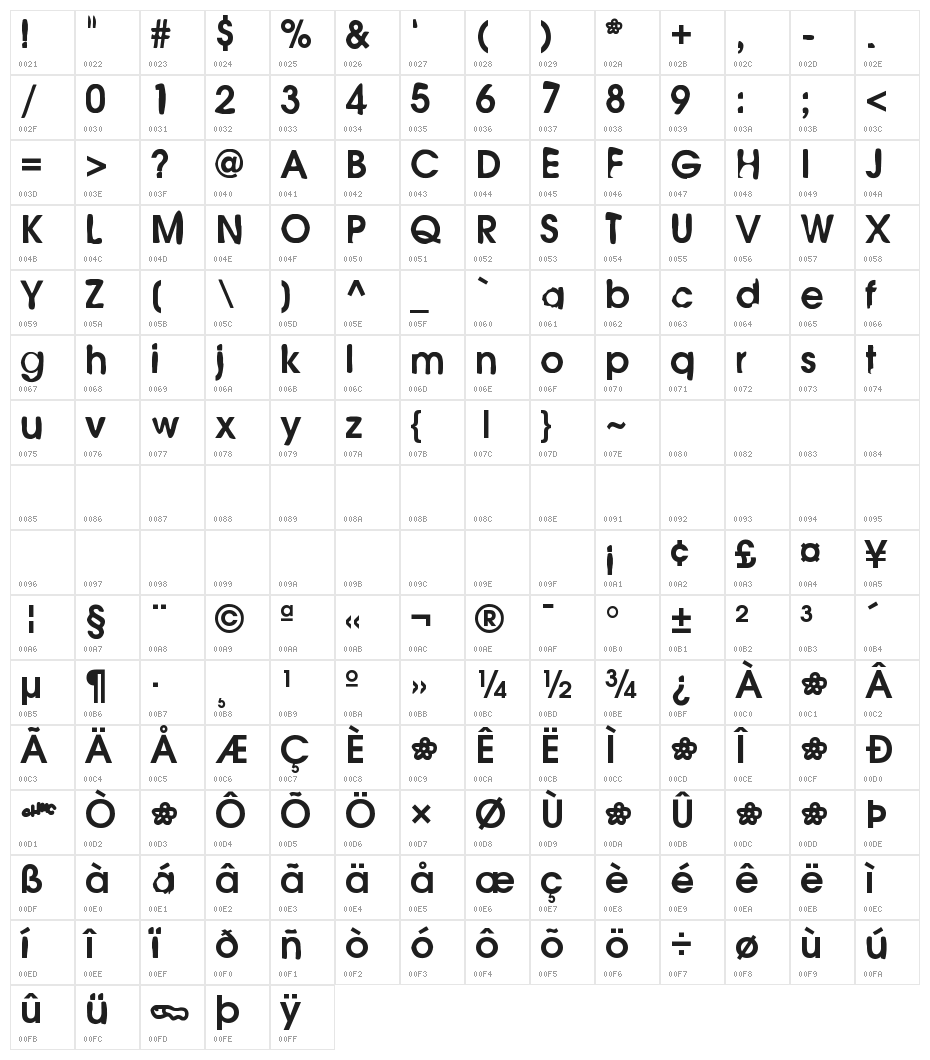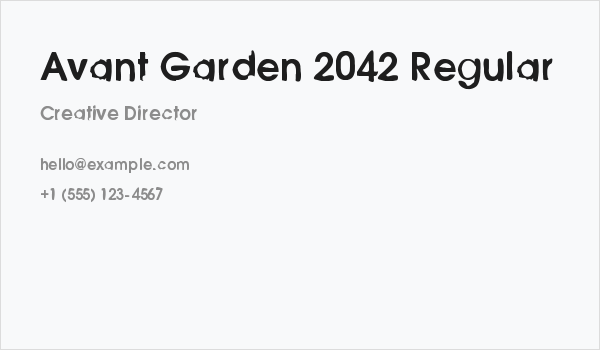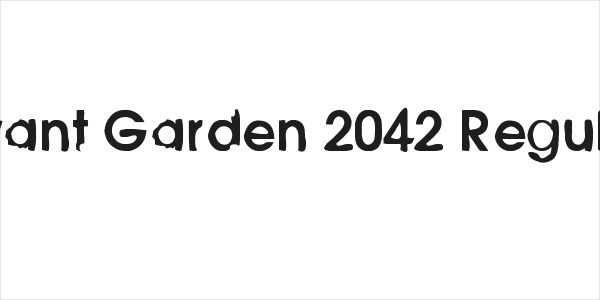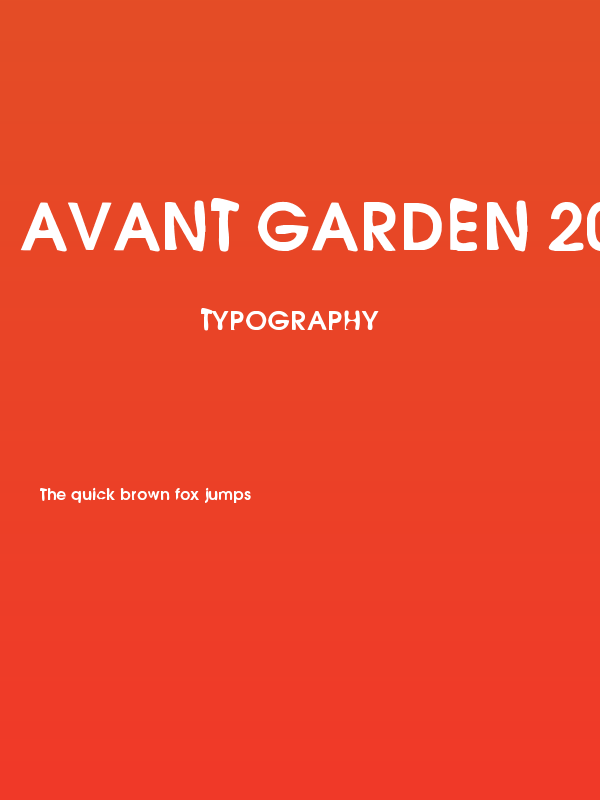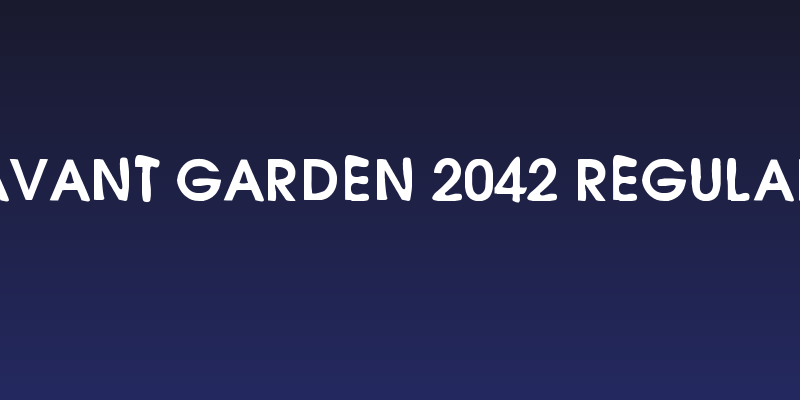
Avant Garden 2042 Regular Font
Avant Garden 2042 Regular Description
This font features a playful and organic design, with each character exhibiting a unique, hand-drawn appearance. The letters have a slightly uneven baseline, adding to the whimsical and artistic feel. The strokes are bold and rounded, with varying thickness that creates a dynamic and lively texture. The uppercase and lowercase letters maintain a consistent style, while the numerals and special characters complement the overall aesthetic. This font is ideal for projects that require a creative and informal touch, such as children's books, artistic posters, or branding for creative industries.
| Proposed Projects | Children's books, artistic posters, creative branding, informal invitations. |